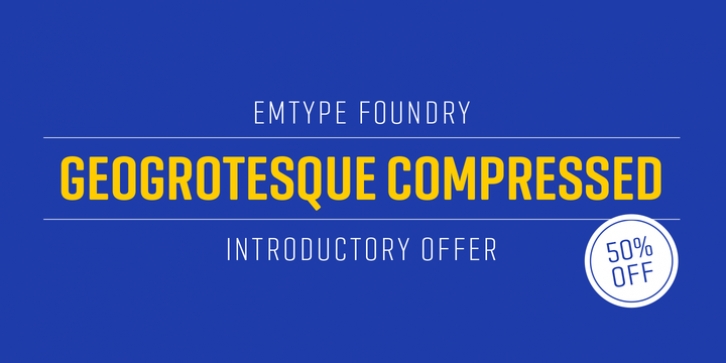
Geogrotesque Compressed downloadDesigner: Eduardo Manso
Publisher: Emtype Foundry
The popular Geogrotesque family becomes an extended system with the inclusion of three new members to the pack; Geogrotesque Condensed, Geogrotesque Compressed an Geogrotesque Extra Compressed. The condensed series keep the spirit of the original one, and give way to a superfamily up to 56 styles. This new system fluidly varies between widths, ranging from the original width to a 55% of it in the narrower one. As their original partner, the new fonts are great headline families for publications, but will also work in text of intermediate length and point size. The Geogrotesque superfamily offers now one font for each design need. It is available in Open Type format and includes Ligatures, Tabular Figures, Fractions, Numerators, Denominators, Superiors and Inferiors. All of them with support for Central and Eastern European languages. Each type family consists of 14 styles, 7 weights (Thin, UltraLight, Light, Regular, Medium, SemiBold and Bold) plus italics.